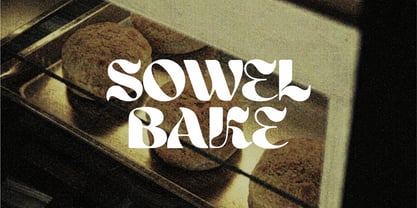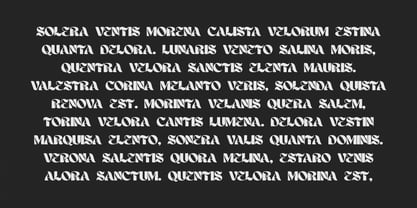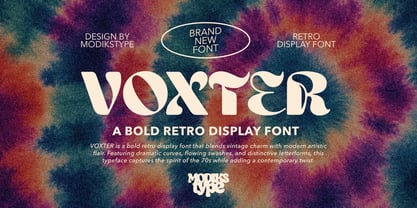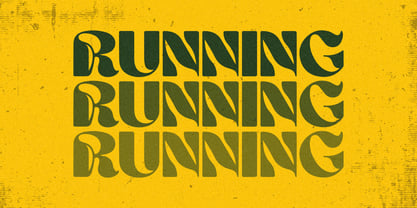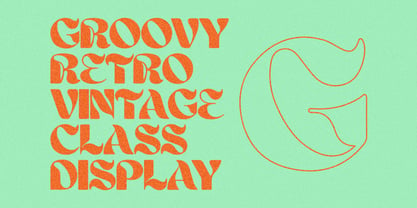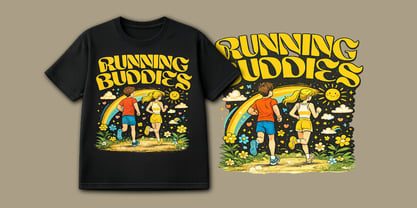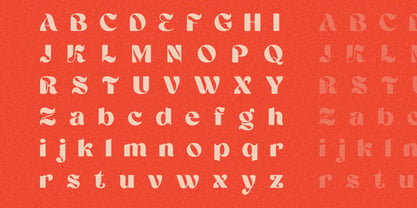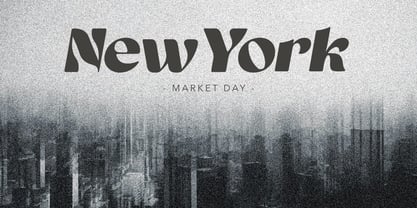
Voxter
The Voxter Font Family was designed by Angga Monad and published by Modikstype. Voxter contains 1 styles. More about this family
VOXTER is a bold retro display font inspired by the vibrant aesthetics of the 70s and vintage psychedelic typography. With its dramatic curves, flowing swashes, and distinctive letterforms, VOXTER delivers a strong visual impact while maintaining excellent readability for headlines and branding.
This typeface is perfect for creating eye-catching designs such as posters, logos, packaging, t-shirts, album covers, social media graphics, café branding, and retro-themed merchandise.
The font combines nostalgic vintage charm with a contemporary artistic twist, making it suitable for both classic and modern creative projects.